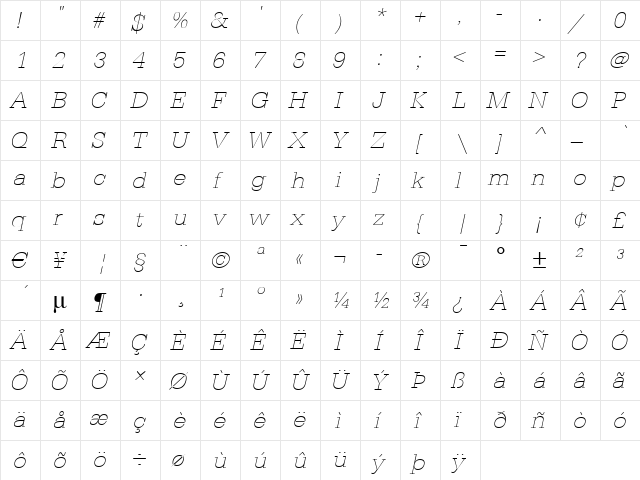
AstridBeckerWideXlight Italic Font Preview
AstridBeckerWideXlight Italic
AstridBeckerWideXlight Italic Font Details
Design Context for AstridBeckerWideXlight Typeface
AstridBeckerWideXlight is a composed and adaptable typeface that performs quietly and consistently across a wide range of design contexts. The slanted form adds forward momentum and visual energy. The delicate stroke weight brings airiness and refinement to layouts.